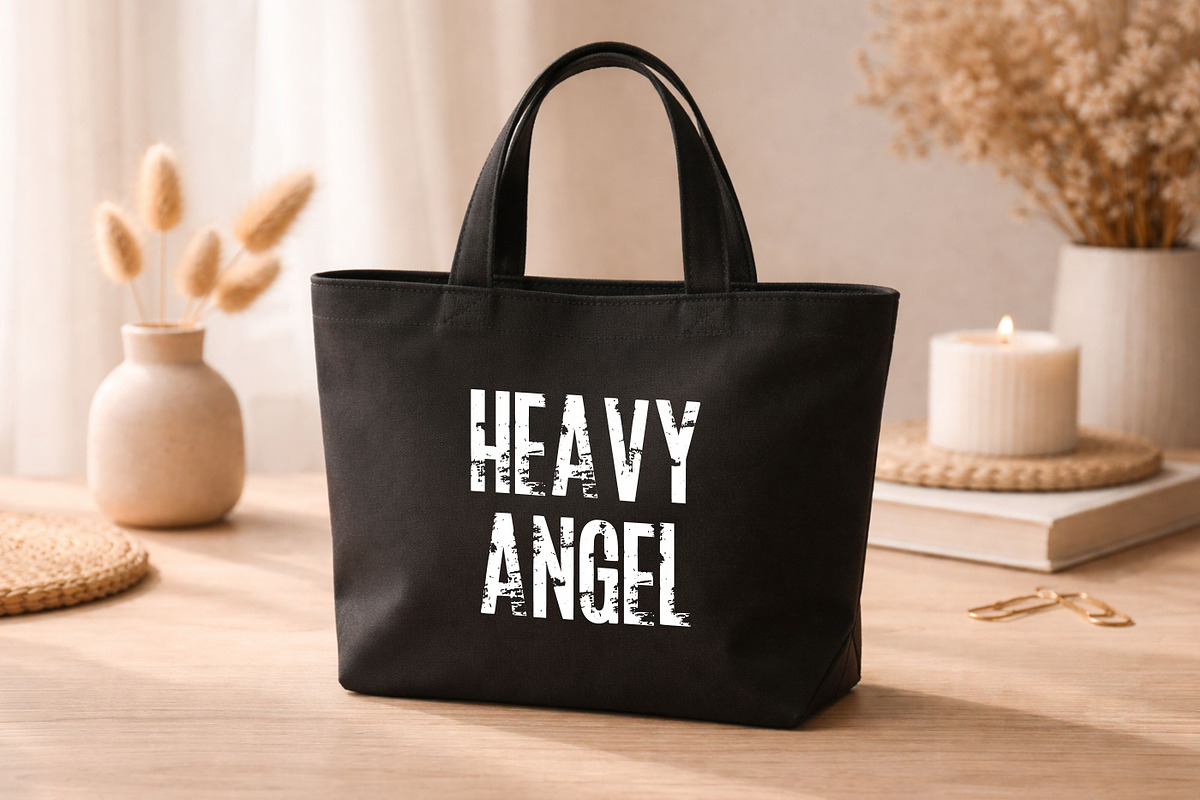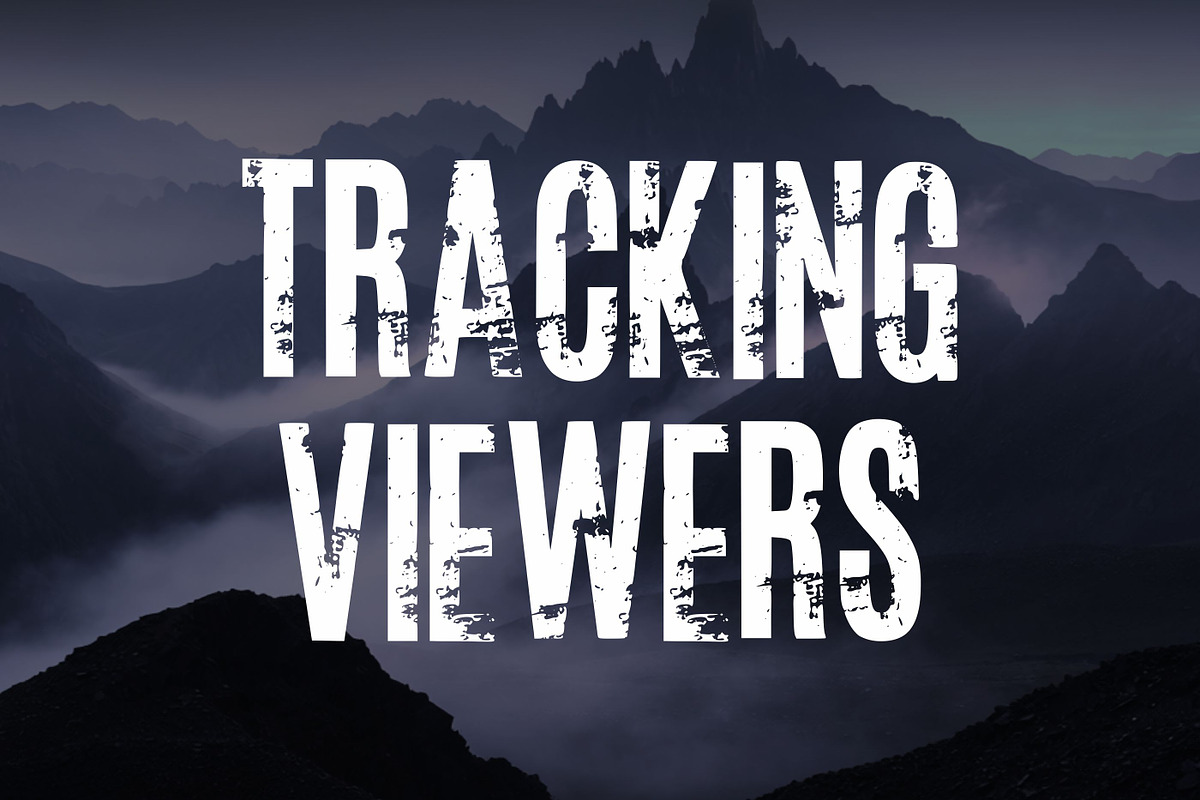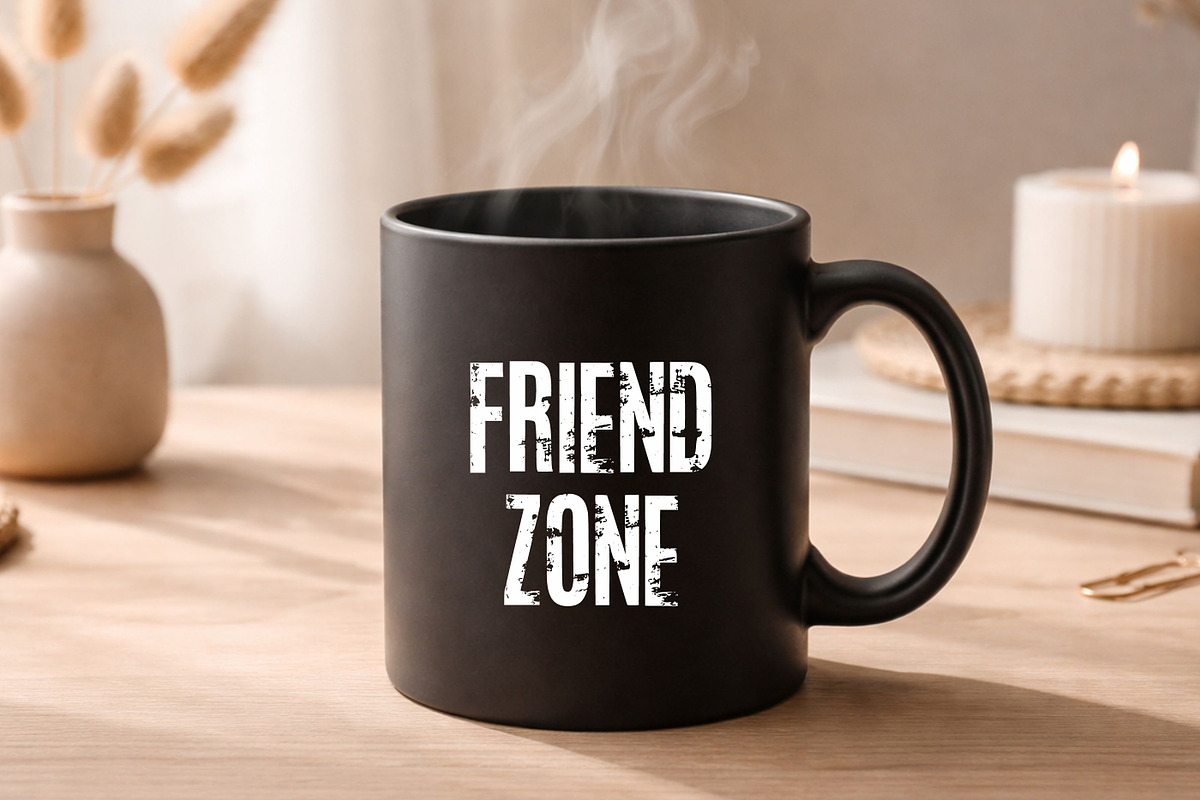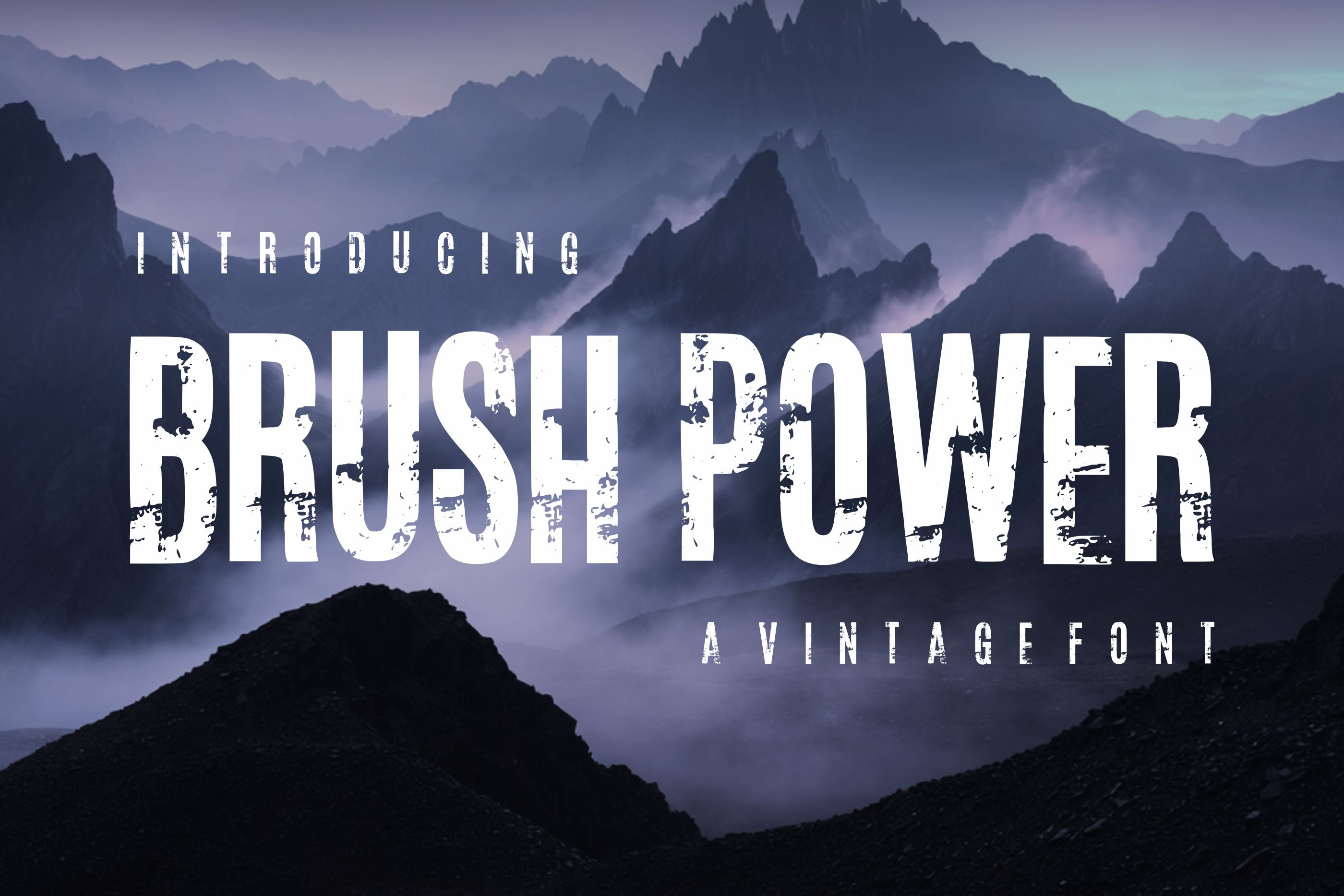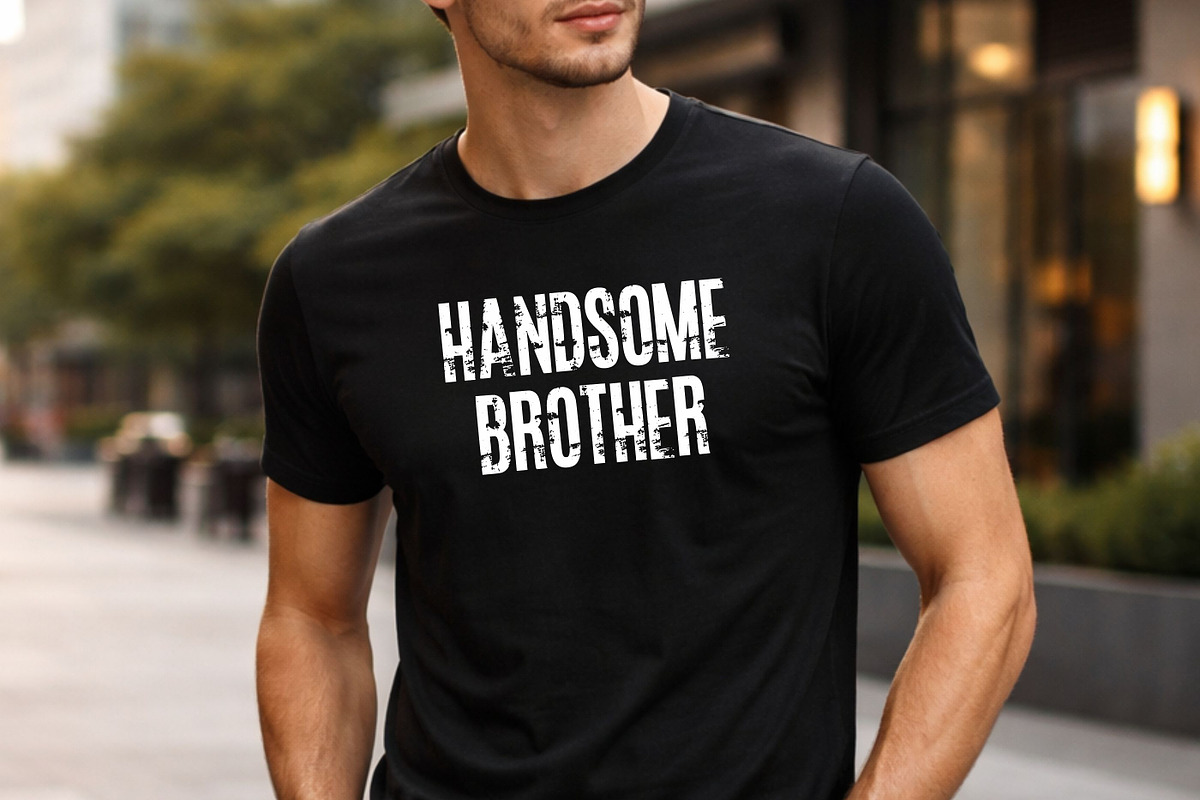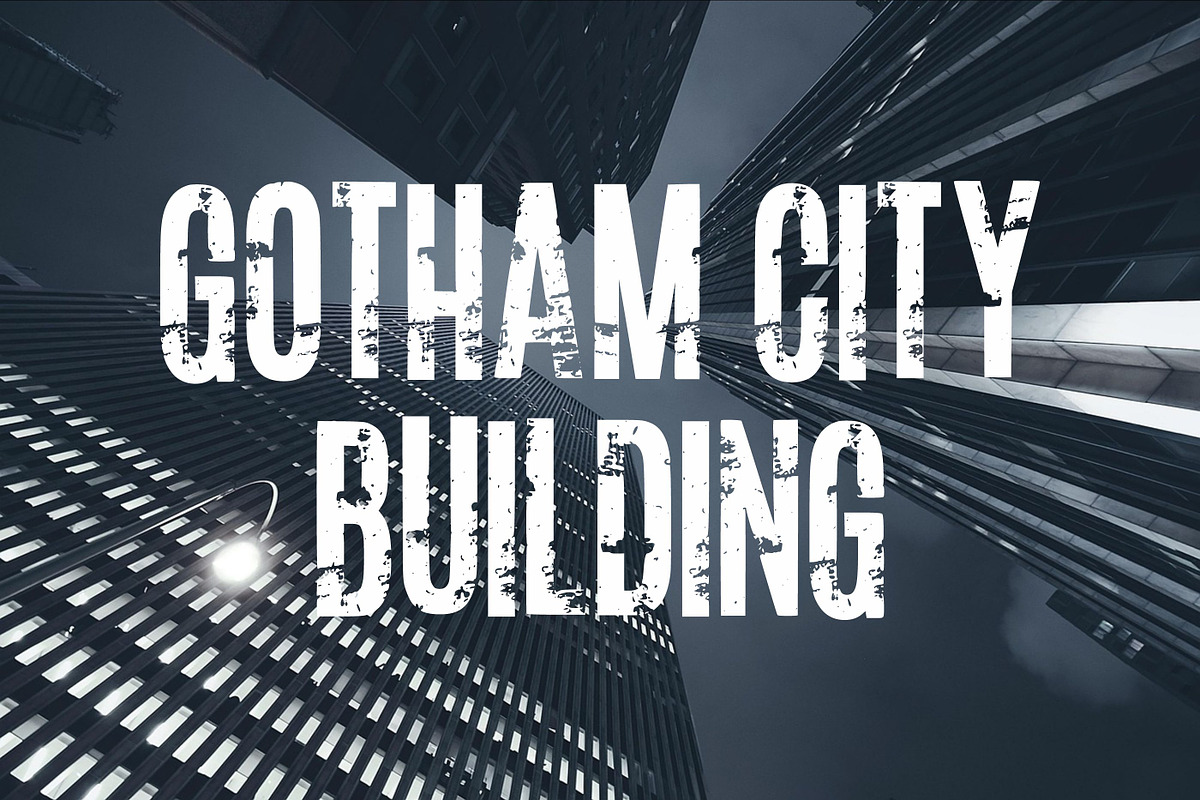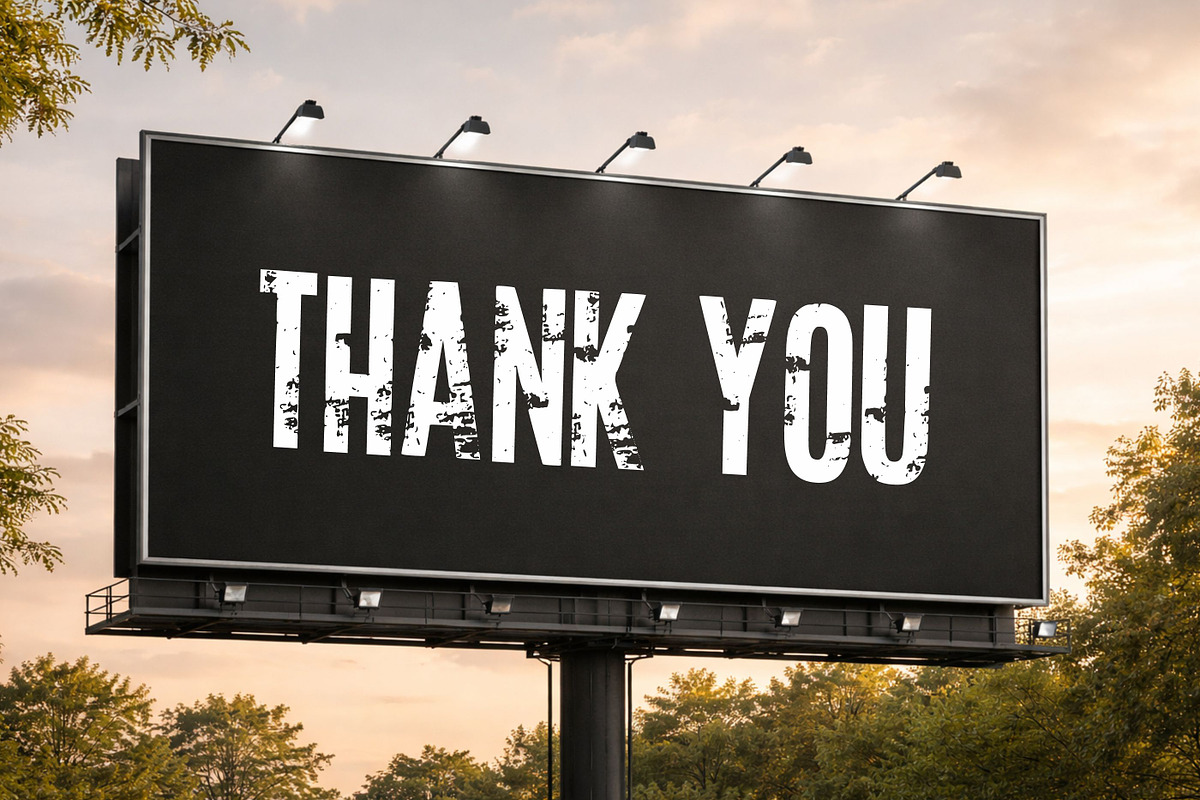
Brush Power - Modern Grunge Font
Brush Power is a bold vintage display font featuring a strong, rugged character with authentic distressed textures. Inspired by retro signage, old posters, and worn-out prints, this font brings a raw and powerful aesthetic to your designs.
Its rough brush-like strokes and weathered details make it perfect for creating eye-catching headlines and vintage-themed projects. Whether you’re designing posters, logos, apparel, or branding materials, Brush Power adds a timeless and masculine edge.
Perfect for designers looking to achieve a classic retro look with a modern twist